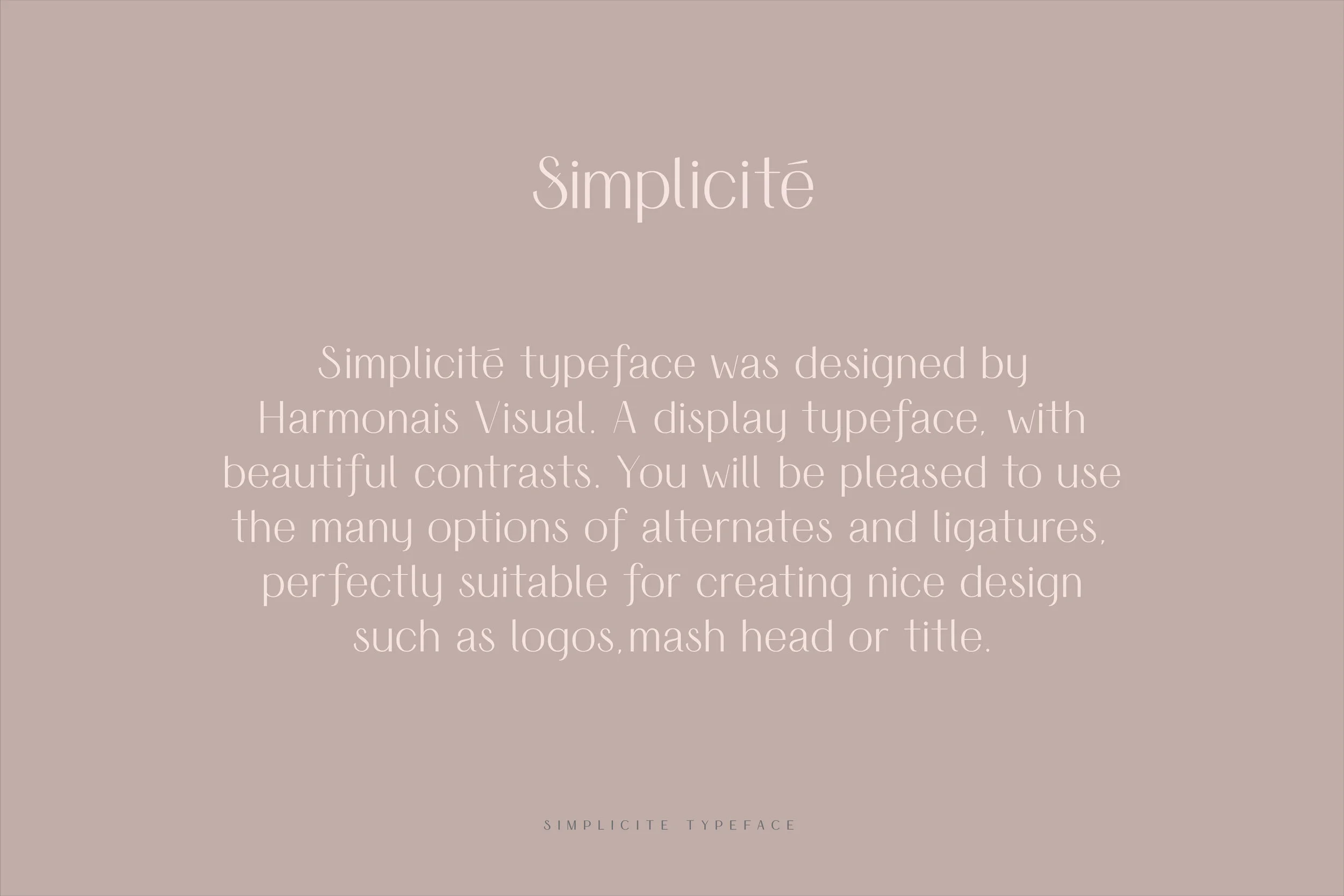
Elegant Sans - Simplicité
Simplicité typeface was designed by Harmonais Visual. A display typeface, with beautiful contrasts. You will be pleased to use the many options of alternates and ligatures, perfectly suitable for creating nice designs such as logos, mash heads, or titles.
• Ligatures
Alternates
European languages
Vietnamese